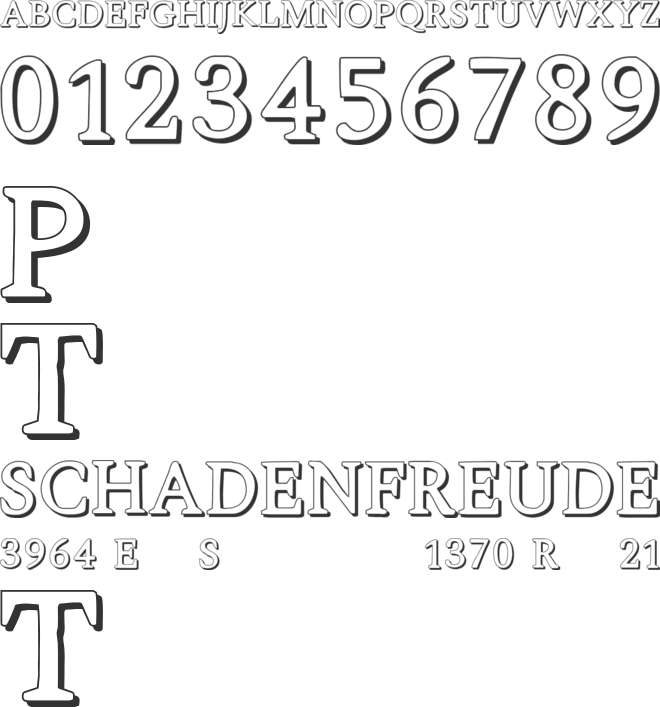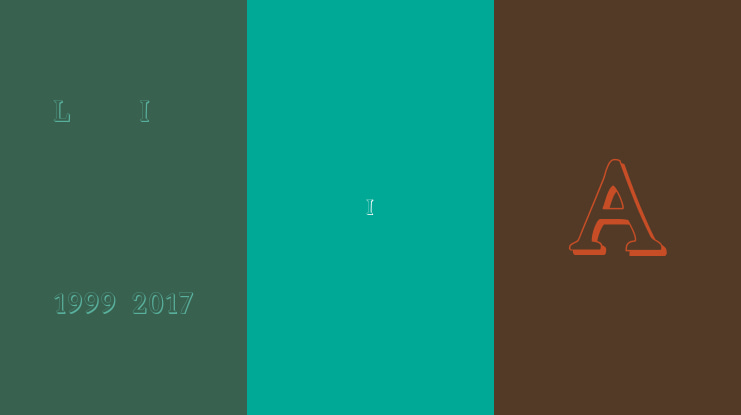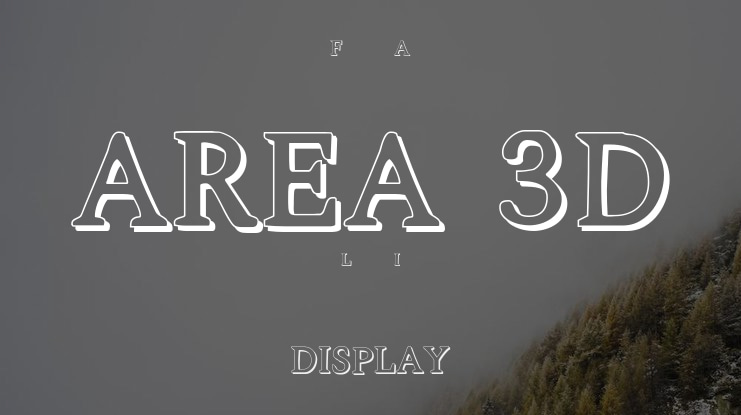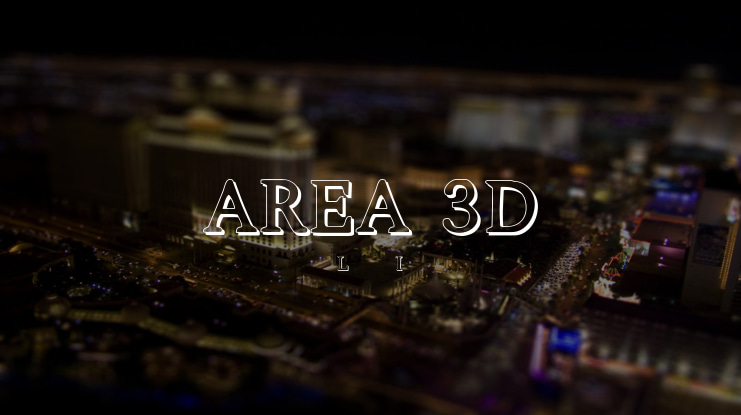
AREA 3D Font
Area 3D Display Typeface is an artsy, playful, and smooth 3D font ideal for various designs, especially catering to young audiences. It infuses a playful and energetic vibe into any creation.